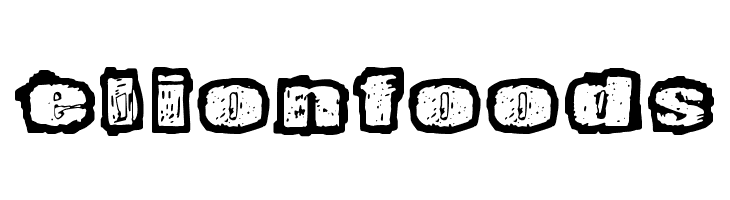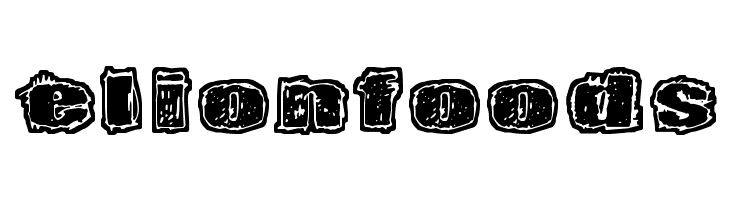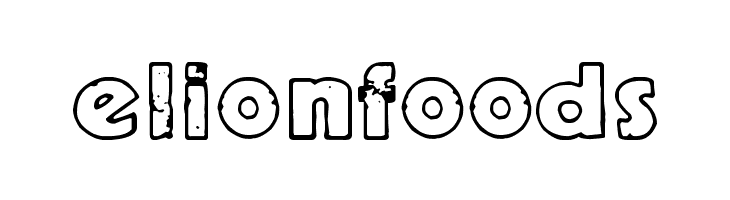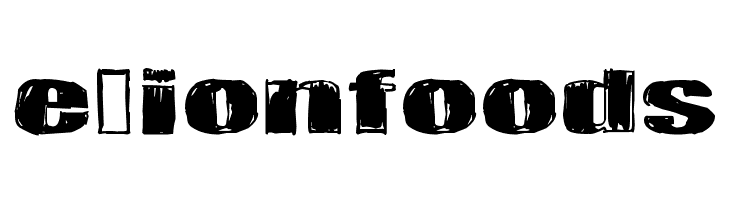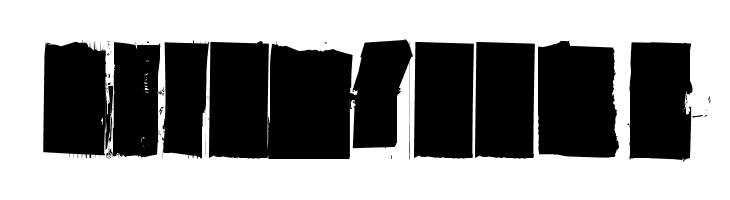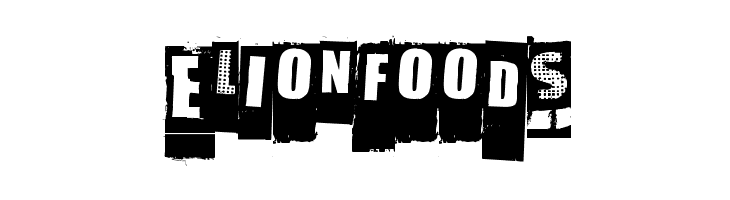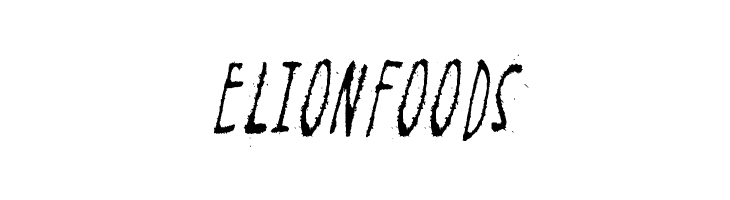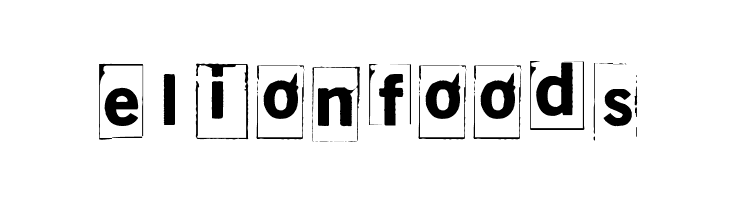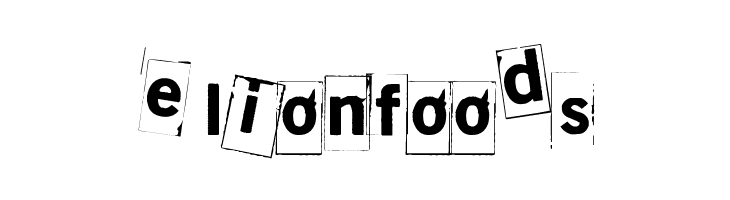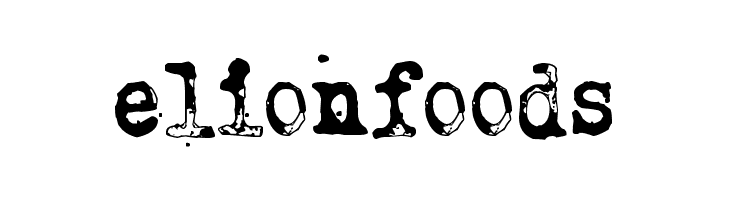
A bold, distressed font with a rugged, textured appearance and hand-drawn quality.
A bold, distressed font with a grunge aesthetic and textured details.
A bold, distressed font with a grunge aesthetic and rough texture.
A bold, distressed font with a grunge, textured style.
A bold, distressed font with a grunge, cut-out style.
A raw, expressive font with hand-drawn, brush-like strokes.
A bold, distressed font with a vintage, industrial feel.
A distressed, cut-out style font with a chaotic, edgy appearance.
A bold, artistic font with irregular, ink-splattered textures and a grungy style.